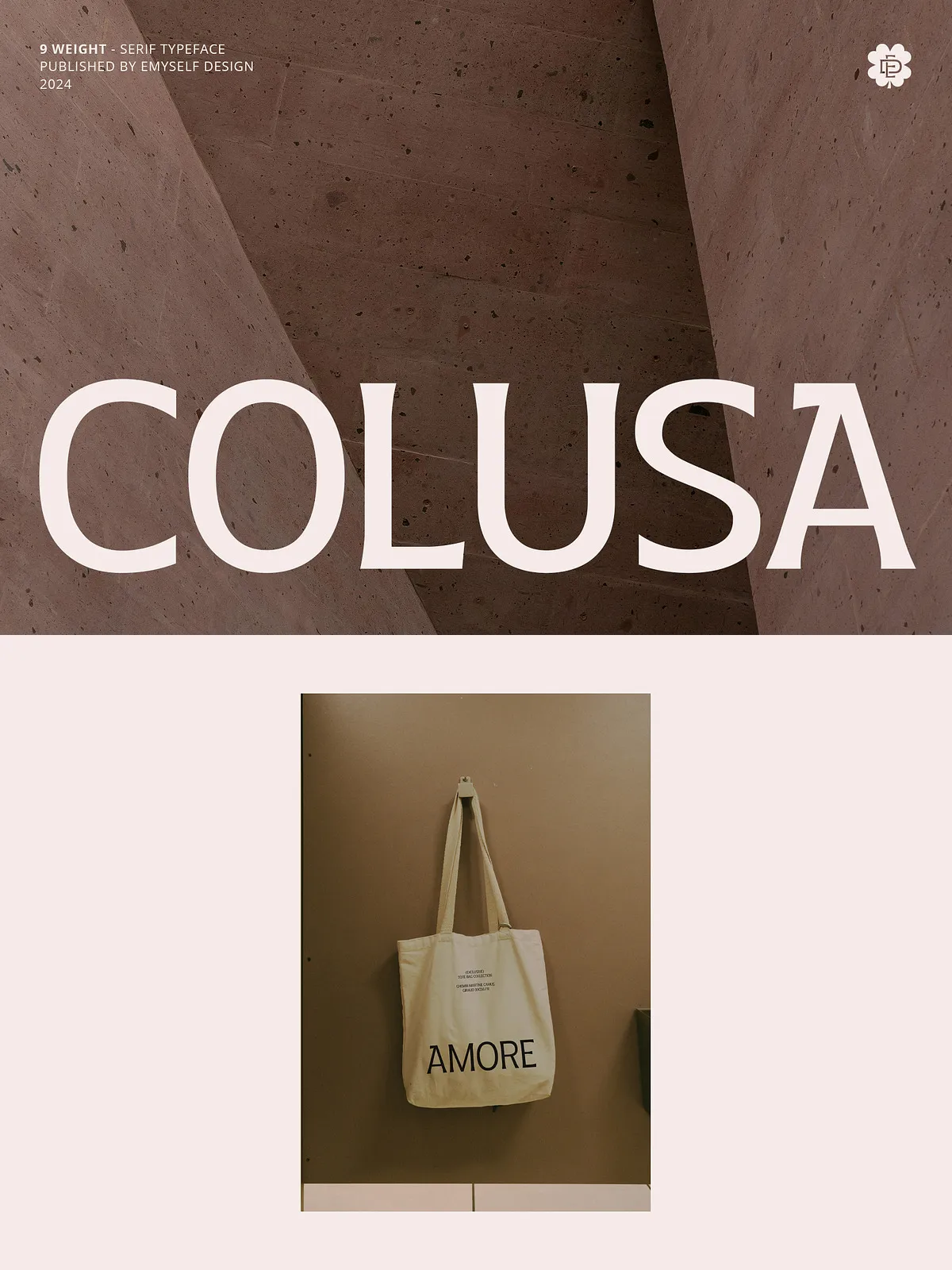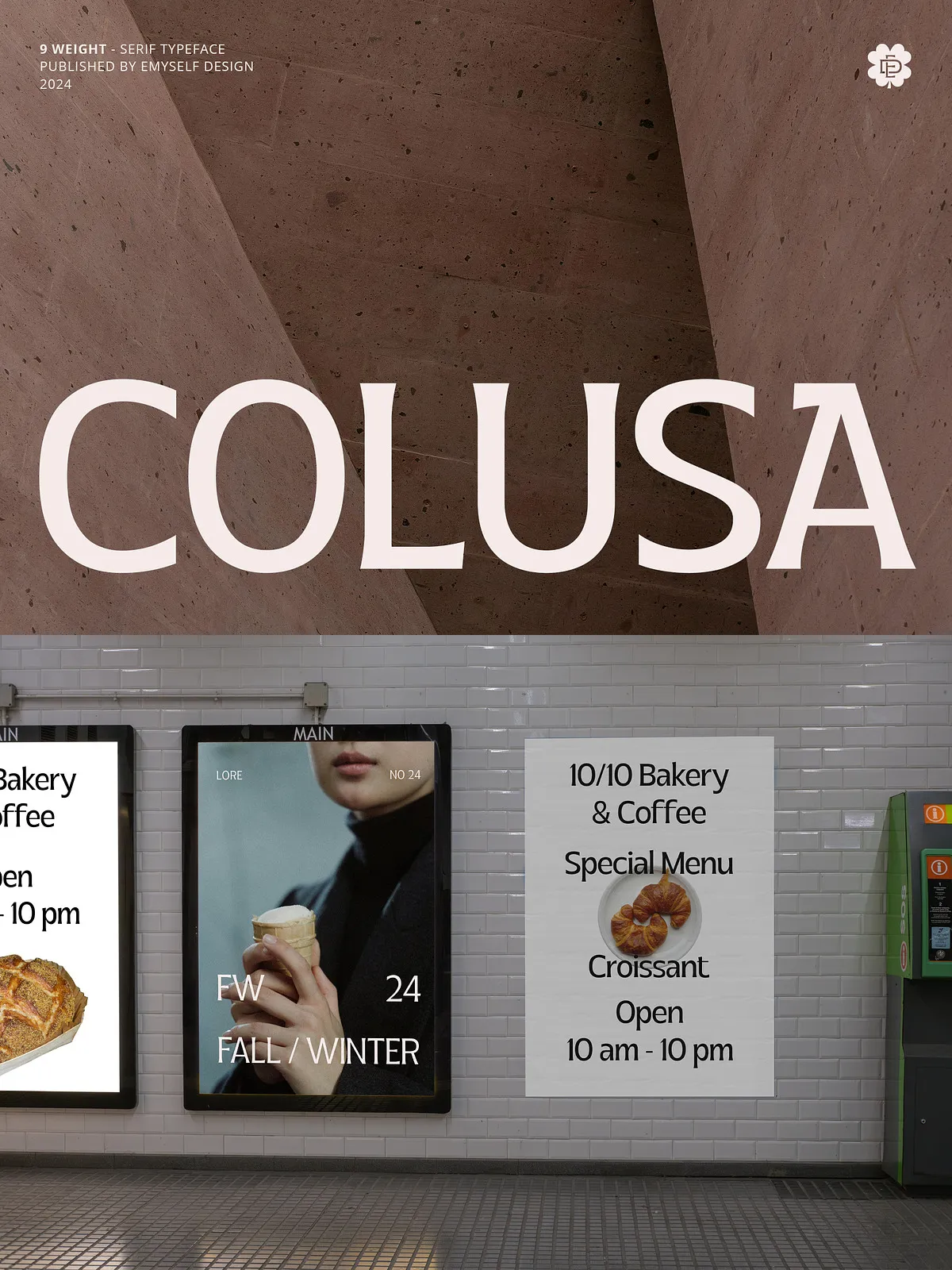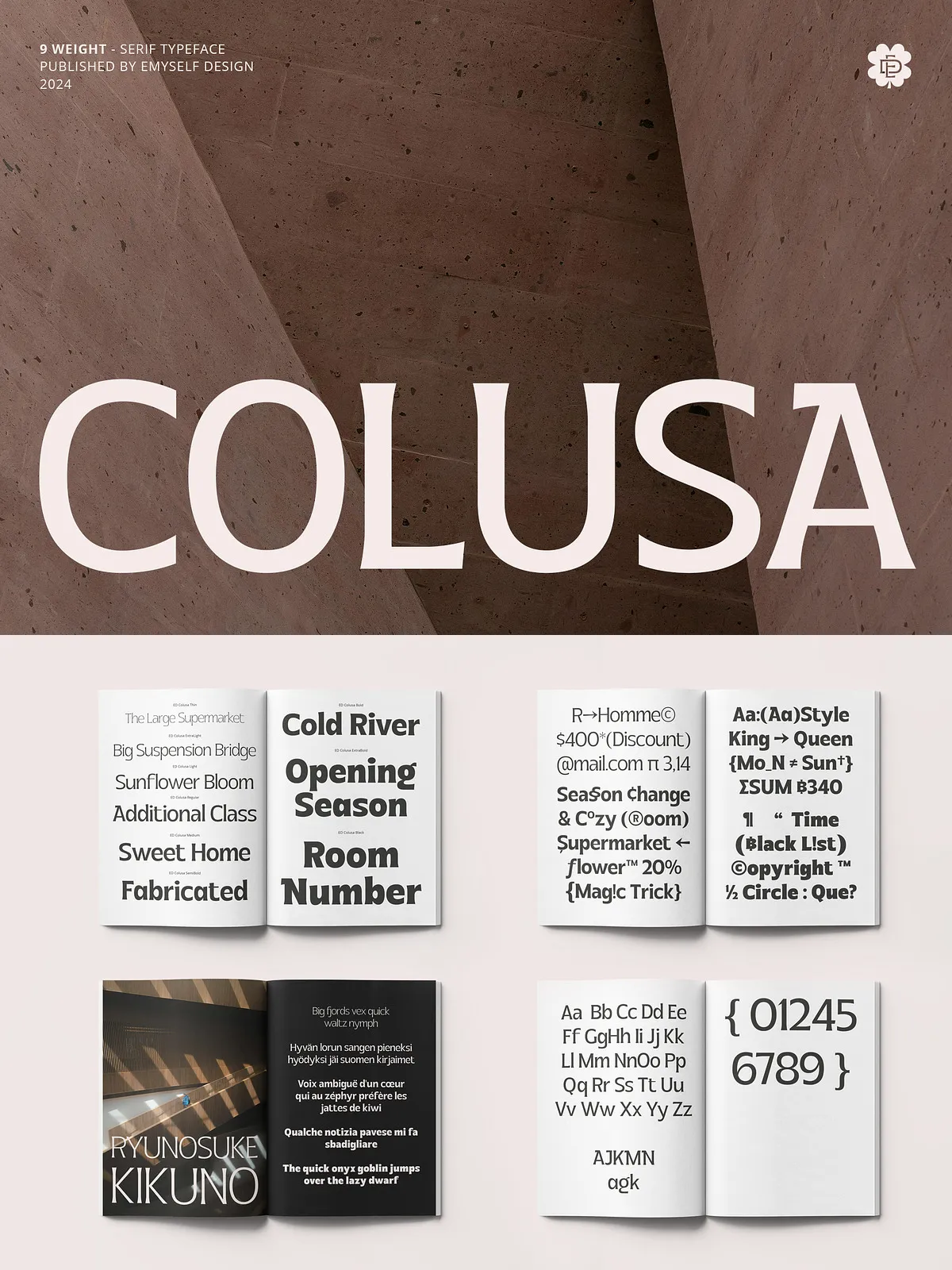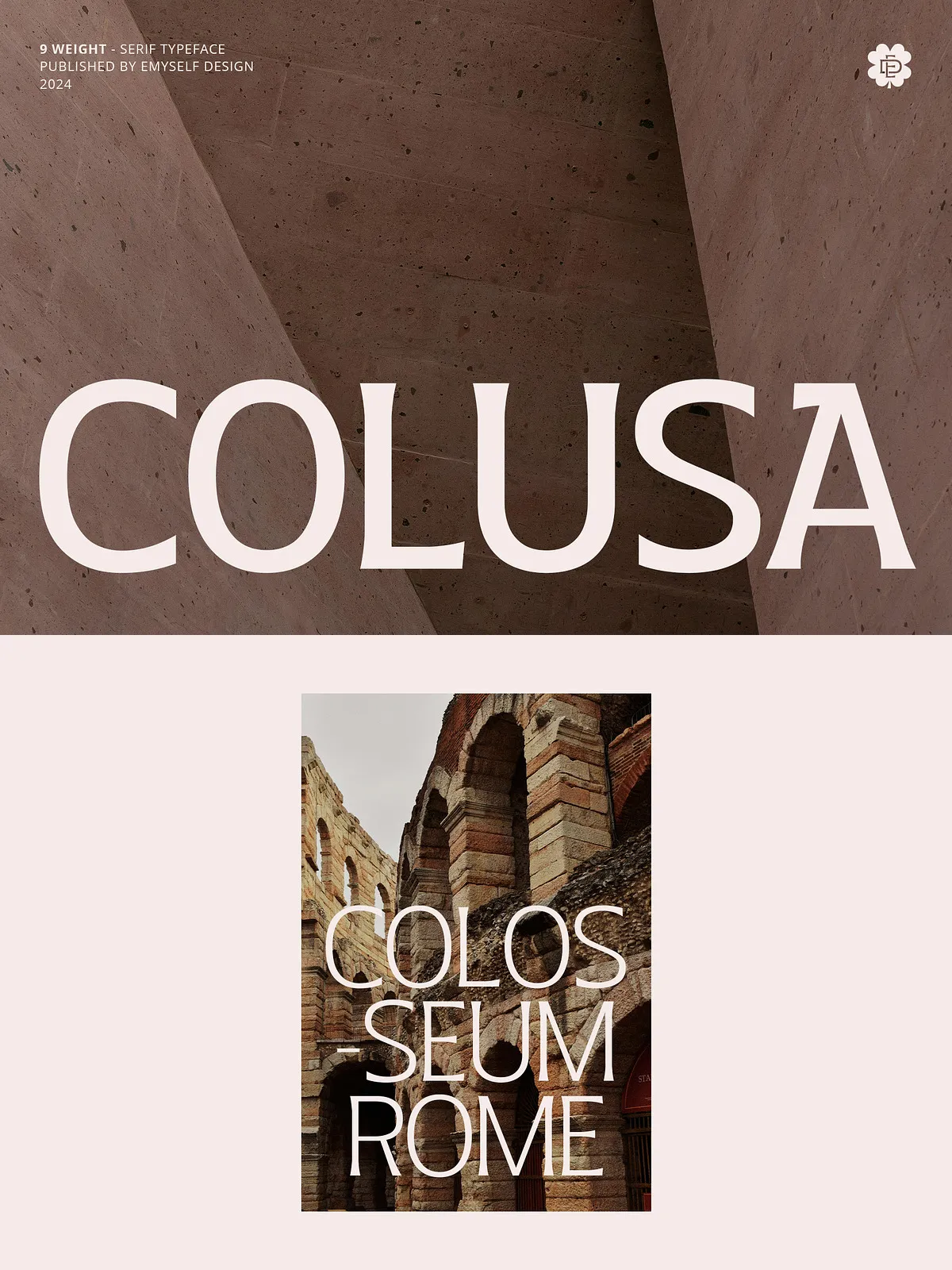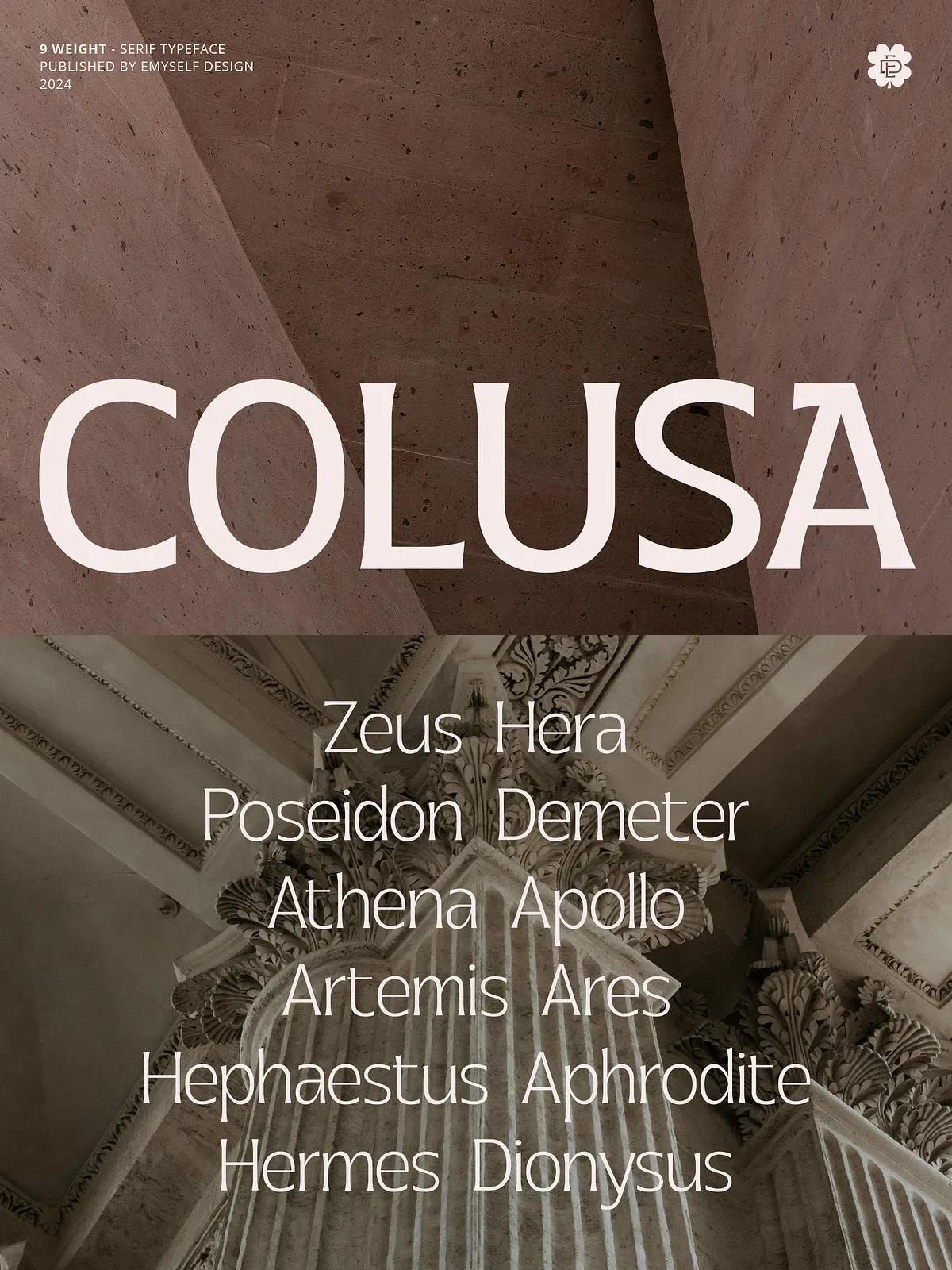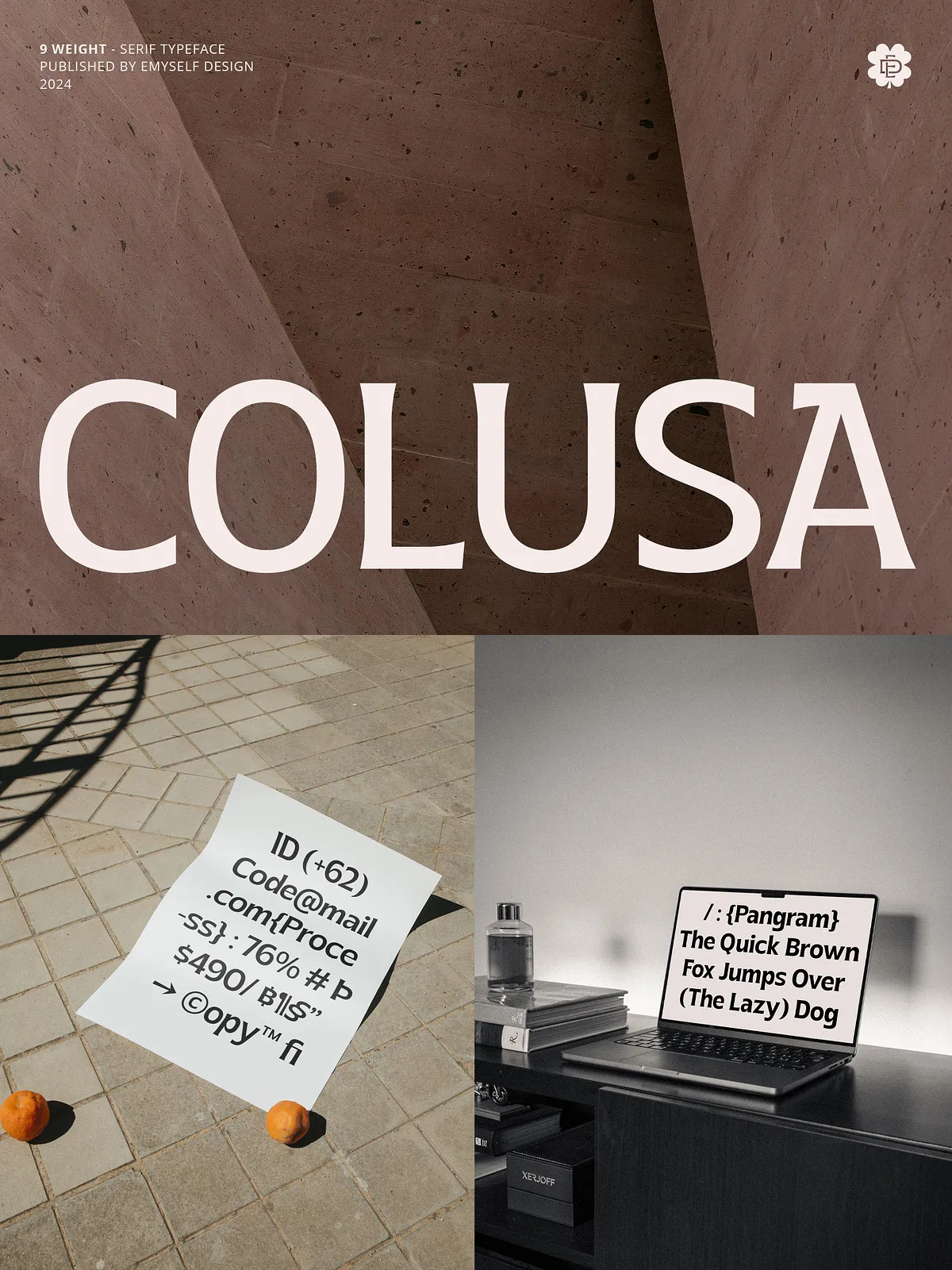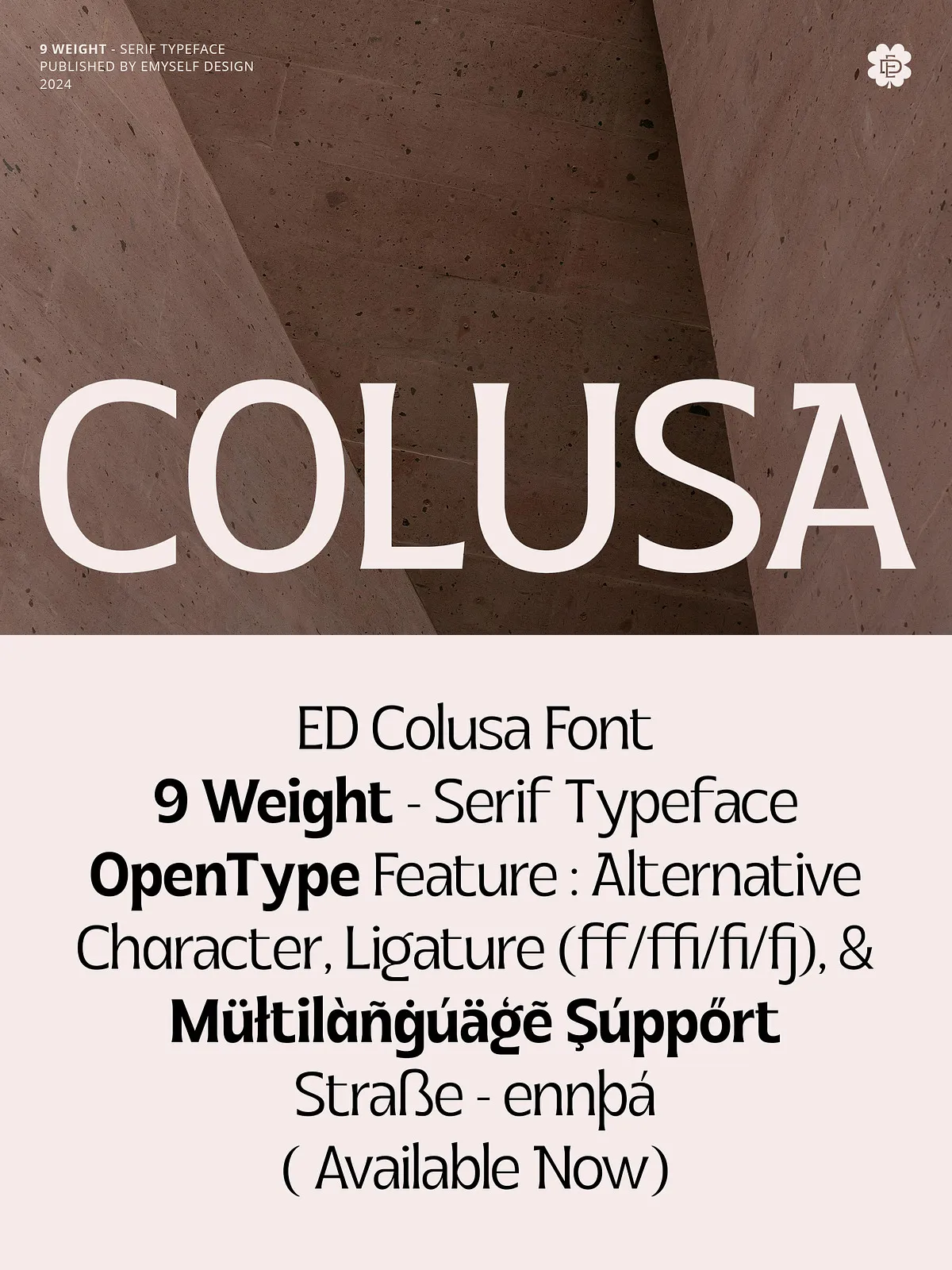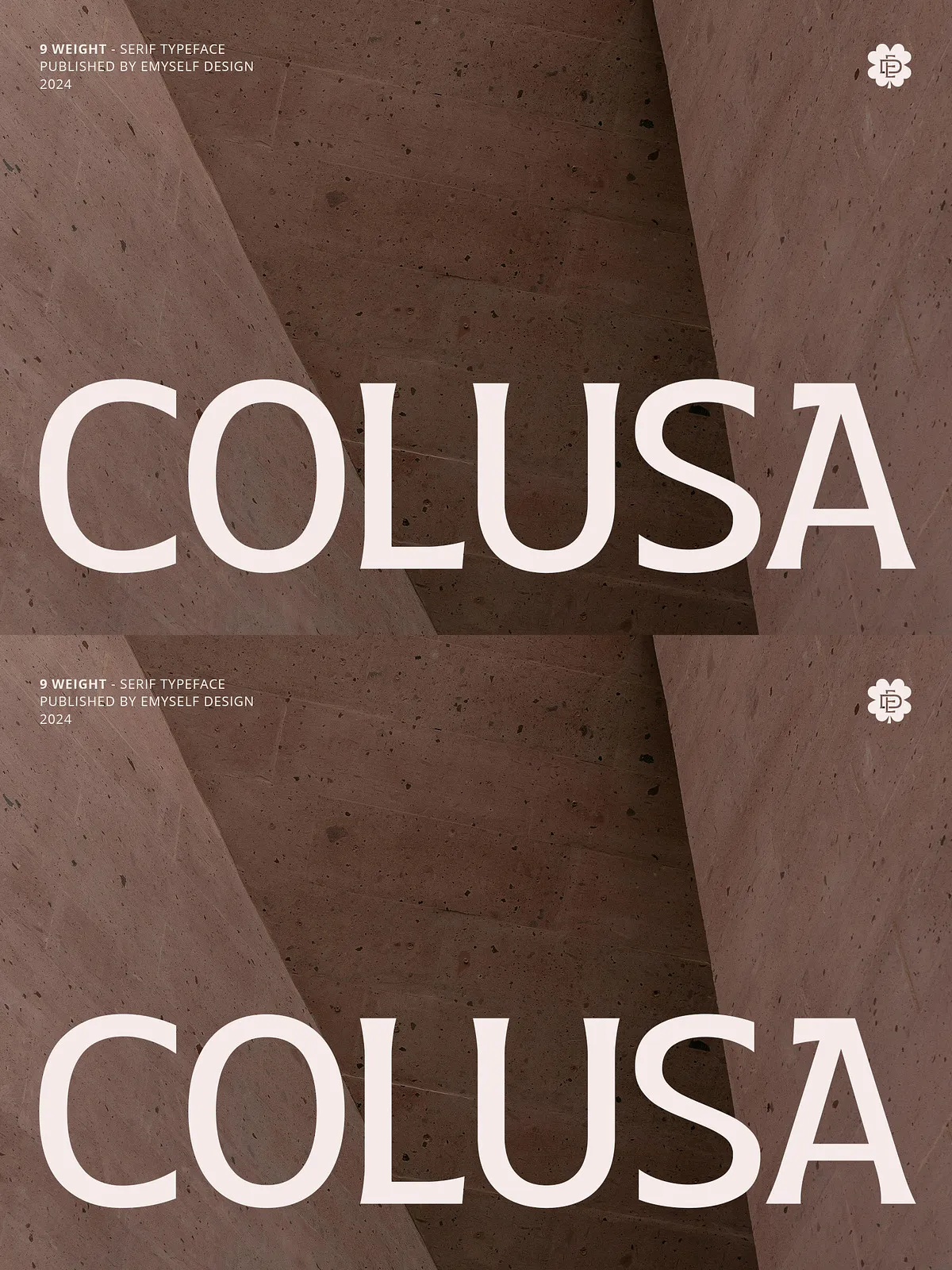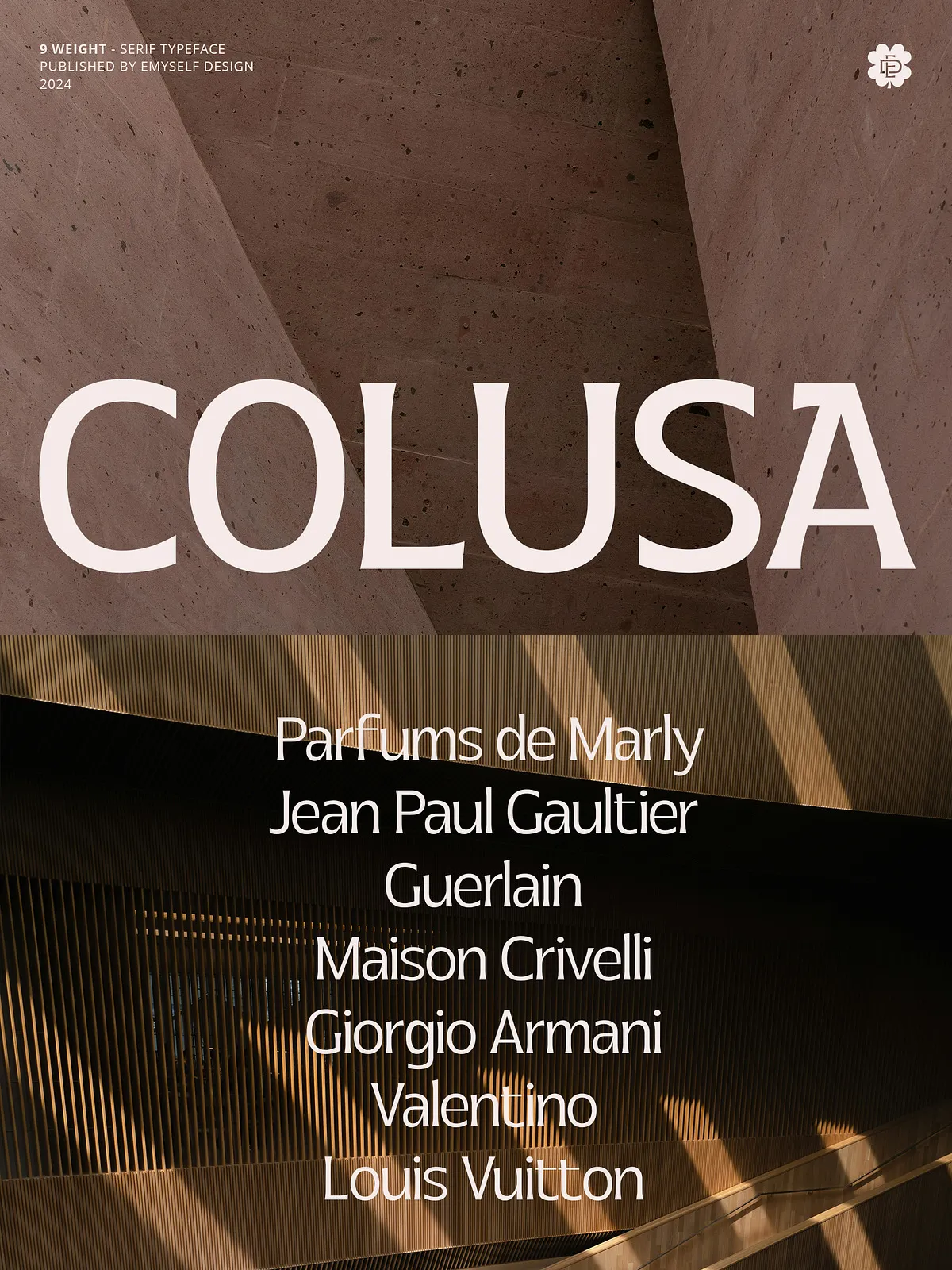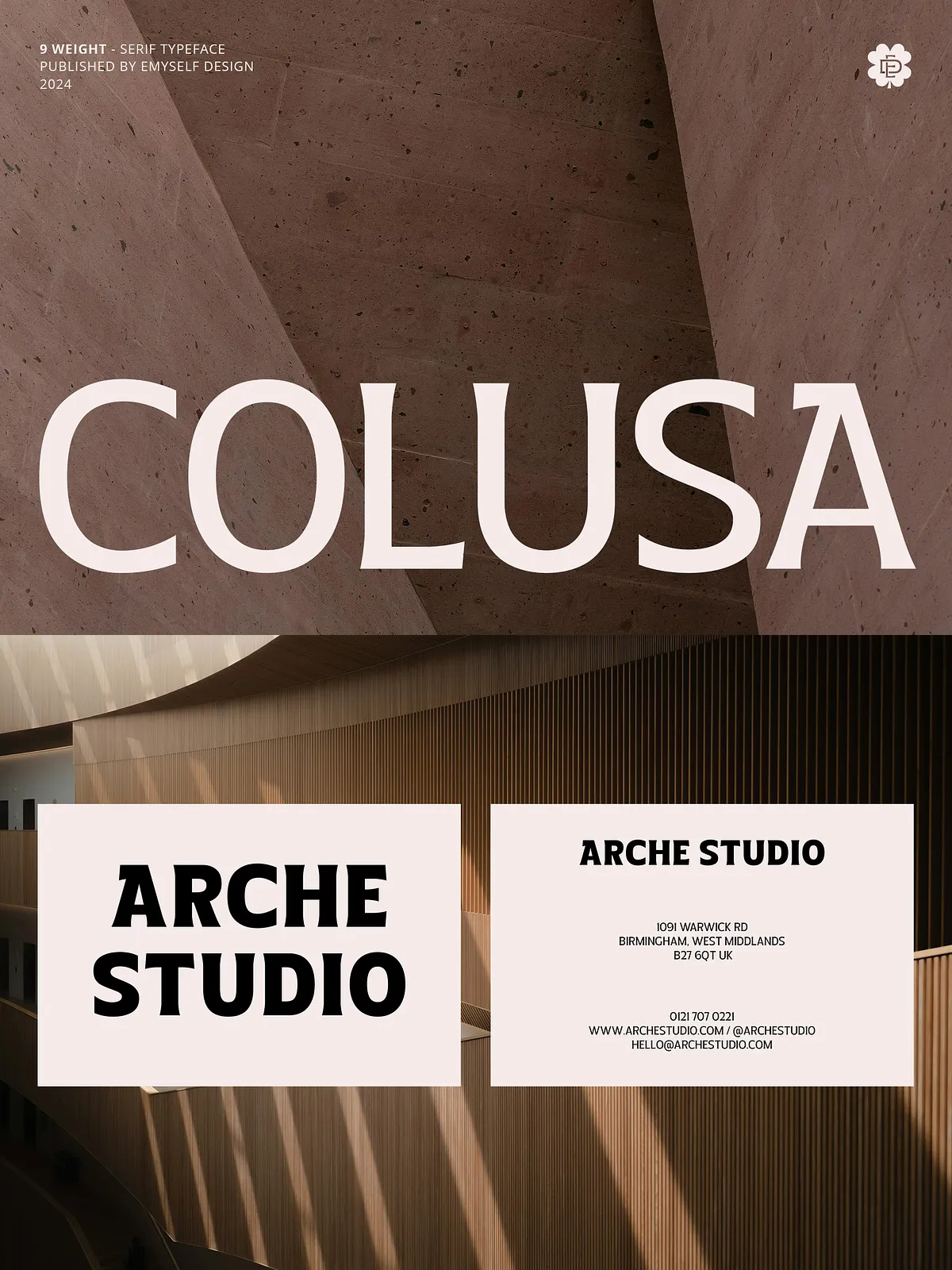
ED Colusa is a modern serif font that combines minimalist beauty with a touch of classic elegance. With its clean and proportional design, this font gives a timeless impression. This font has 9 levels of thickness from thin to black allowing you to adjust the font to various types of designs, from light and soft to bold and authoritative.
In addition, this font is also equipped with OpenType features such as Stylistic set, ligature, and multi-language support. This font is perfect for your creative projects such as Logotype, printed quotes, invitations, cards, headers, letterheads, Apparel, Web design, magazines, books, etc.
FEATURES:
Total Glyphs: 439
9 Family font (Thin, ExtraLight, Light, Regular, Medium, Semibold, Bold, ExtraBold, and Black).
Uppercase
Lowercase
Punctuation and Marks
Symbols
Alternate & Ligatures